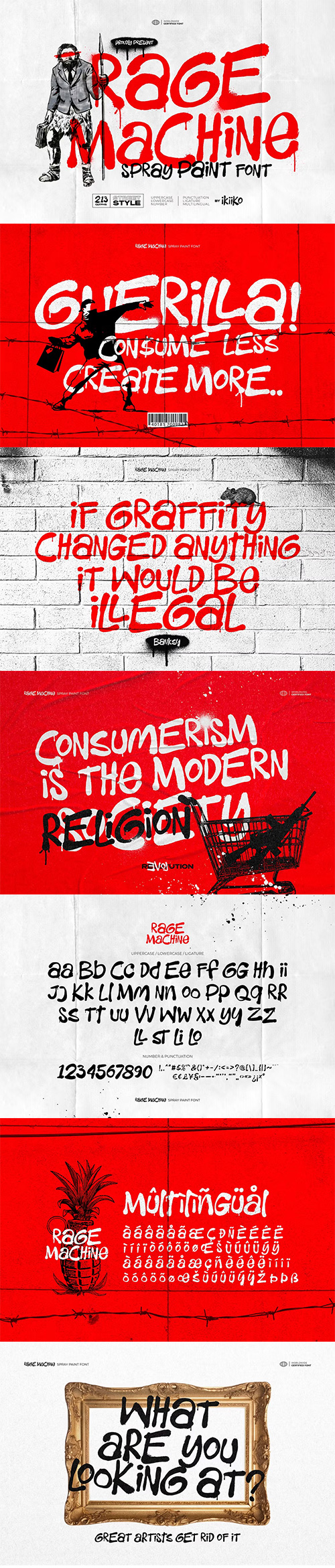
CM - Rage Machine - Spray Paint Font 291006720 NEW!
Proudly present Rage Machine - Spray Paint Font, created by ikiiko.
- Rage Machine is a bold, hand-drawn spray paint font that channels the unfiltered energy of graffiti art into your designs. Carefully crafted to replicate the raw, organic strokes of real street art, this font captures the spirit of the urban landscape, where creativity knows no bounds. Inspired by the rebellious essence of street culture, Rage Machine reflects the freedom, individuality, and daring expression that graffiti represents.